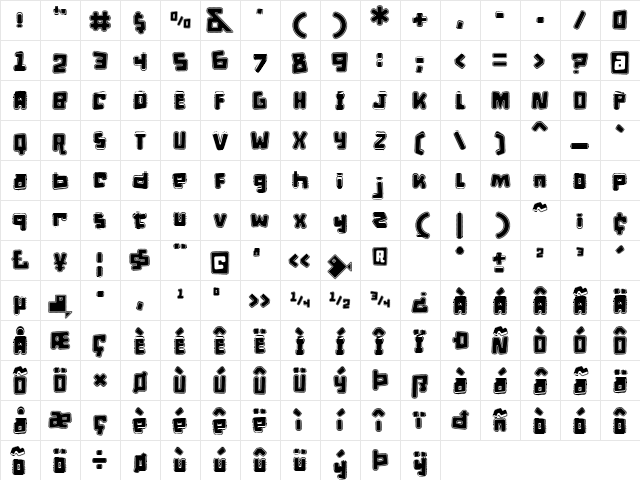
Complete d puntillas E tiptoes squid Regular glyph index. Displaying only characters natively supported by d puntillas E tiptoes squid Regular font.
d puntillas E tiptoes squid is a composed and adaptable typeface that performs quietly and consistently across a wide range of design contexts.